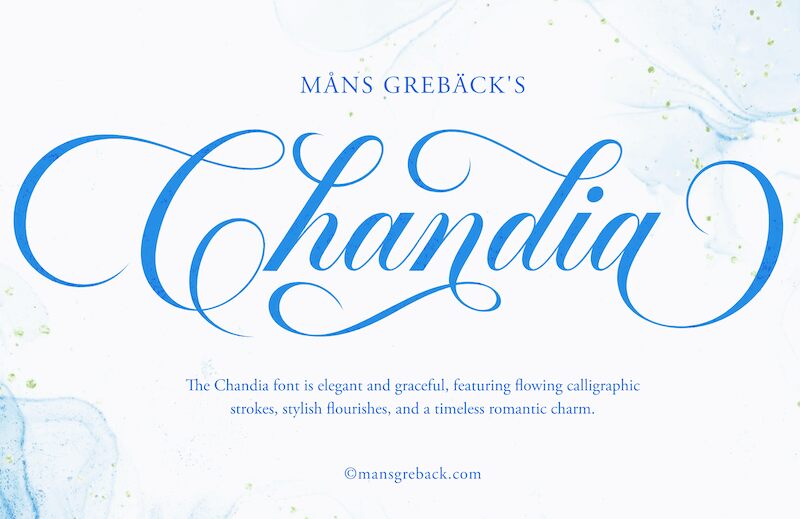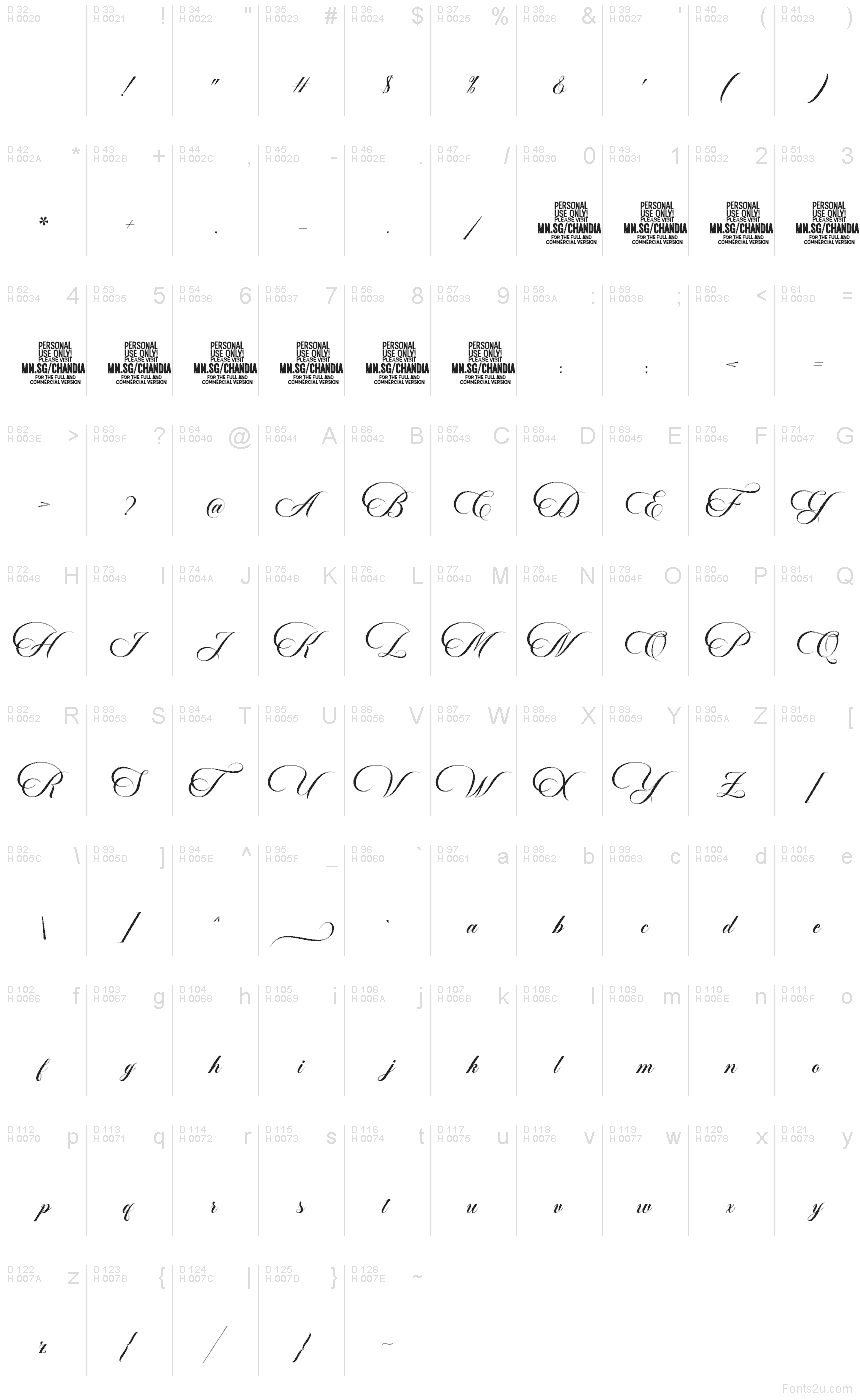
Chandia font by Mans Greback is a free calligraphy font that pours across the page like wet ink from a fine nib. Each letter curls into the next with sweeping swashes and elongated tails, giving the typeface a sense of movement and ceremony-like a name carefully signed at the bottom of a love letter. The strokes feel polished but not stiff, balancing drama with just enough restraint to stay legible at medium sizes.
Using Chandia, your headlines and names instantly feel formal and romantic, making this free font a natural choice for wedding invitations, save-the-dates, luxury packaging, beauty branding, certificates, and elegant social media graphics. It shines when you give it space to breathe, so set Chandia large and pair it with a clean sans serif for supporting text to keep the whole layout crisp and timeless.
Use underscore _ after any word to make a swash. Example: Beautiful_